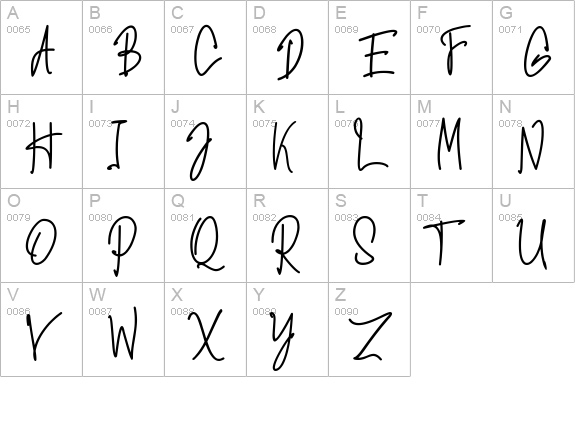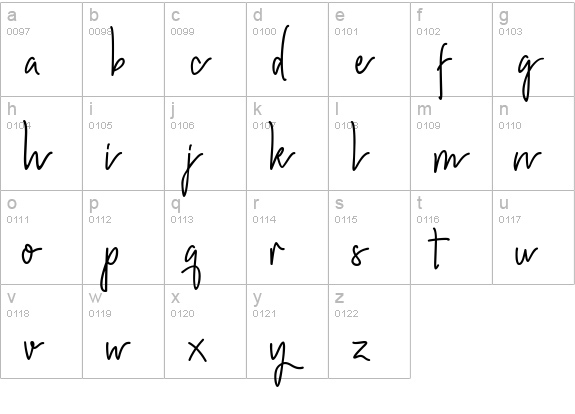
Hiroshima is a free for personal use font in the Script > Handwritten category, designed by Yusron Billah. It has been downloaded 285 times and is available for Windows, Mac and Linux.
Hiroshima font is a modern and stylish typeface that brings a touch of elegance to any design project. With its clean lines and sleek curves, this font is perfect for creating eye-catching logos, posters, and branding materials. The Hiroshima font is versatile and can be used for both headers and body text, making it a must-have for designers looking to add a sophisticated touch to their work.